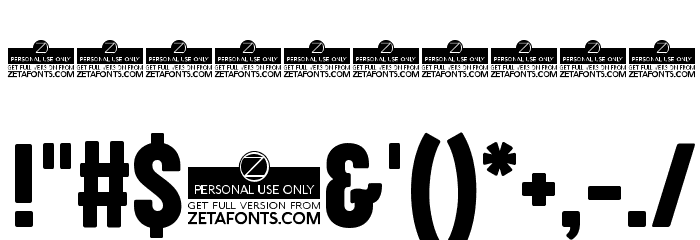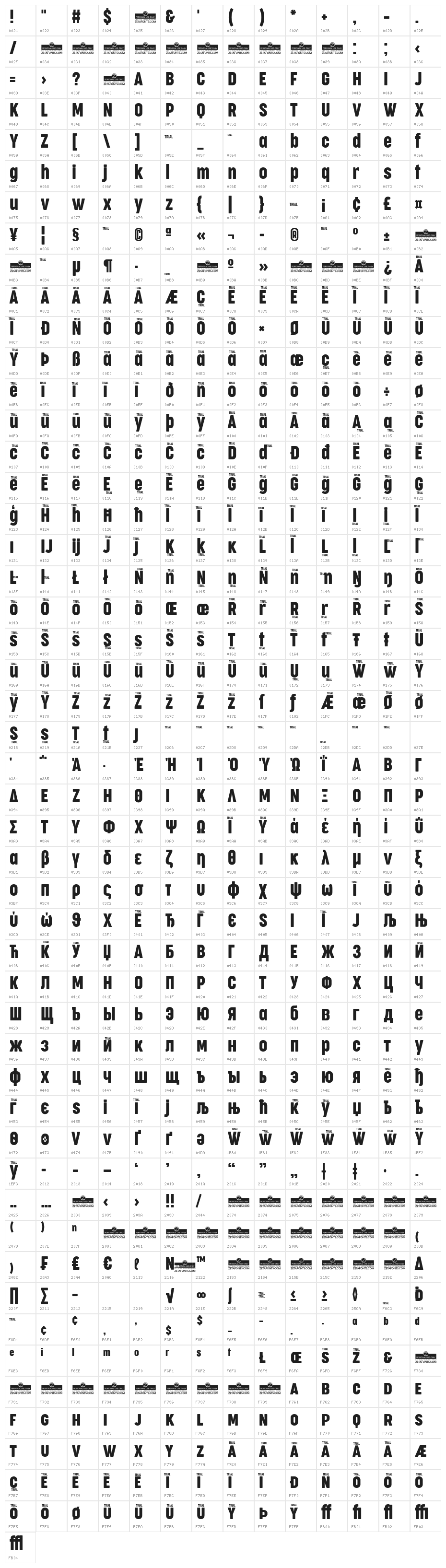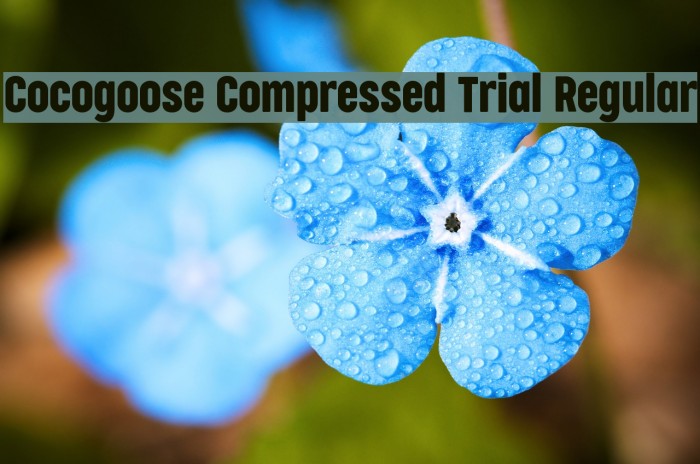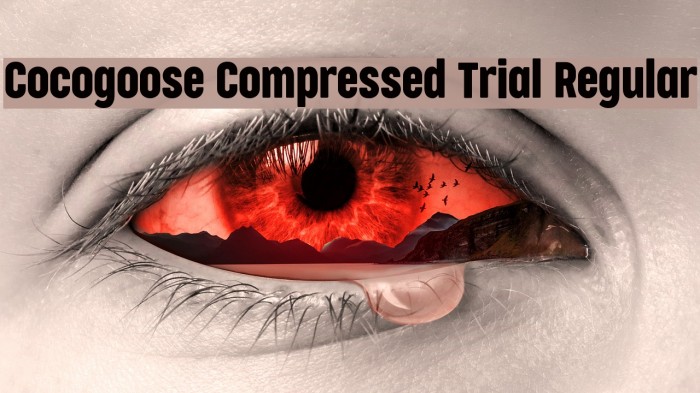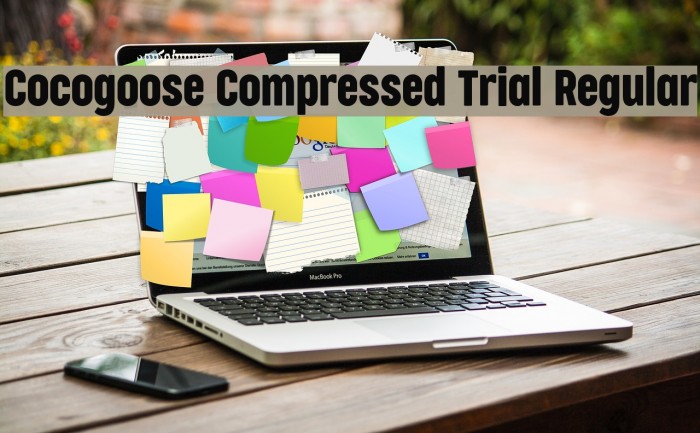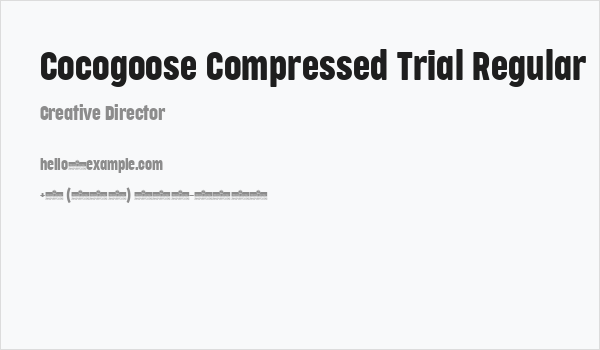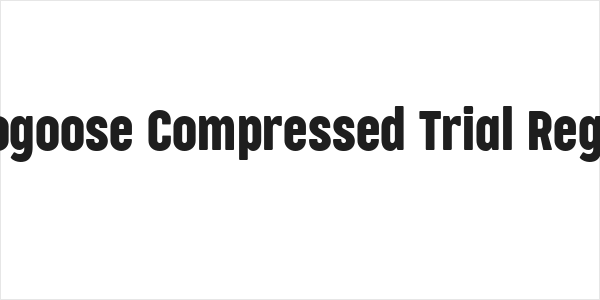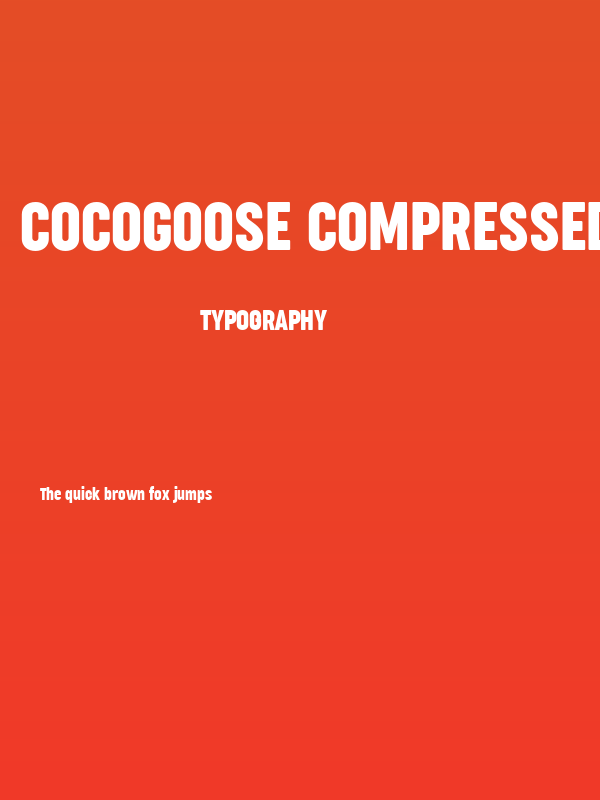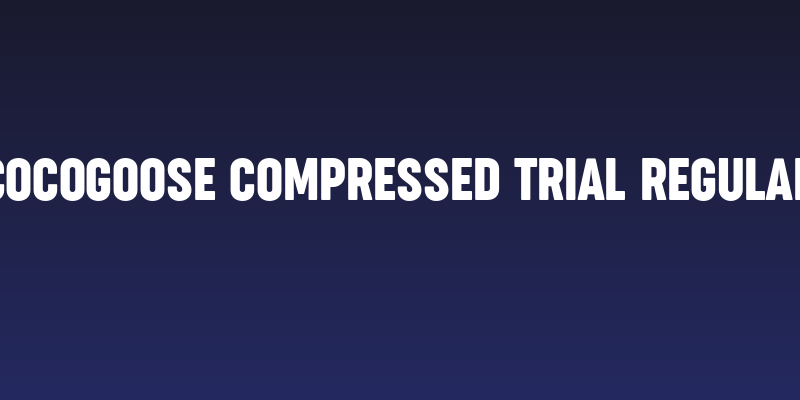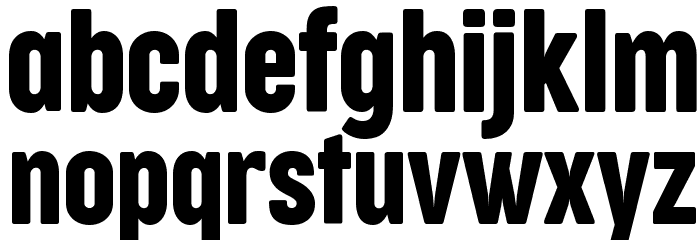
Cocogoose Compressed Trial Regular Font
Cocogoose Compressed Trial Regular Description
This typeface exhibits a bold and impactful design, characterized by its compressed and condensed letterforms. The uppercase and lowercase letters maintain a uniform stroke width, contributing to a strong and cohesive appearance. The font's geometric structure is evident in its clean lines and sharp angles, making it highly legible even at smaller sizes. The numerals and special characters are designed with the same attention to detail, ensuring consistency across all glyphs. This font's modern aesthetic is suitable for a variety of design applications, offering a professional and contemporary look.
| Proposed Projects | Ideal for branding, advertising, headlines, and editorial design where a strong visual impact is desired. |